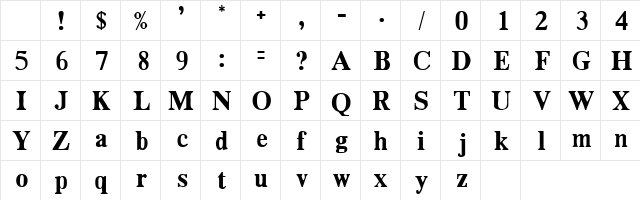
Complete DailyPlanet Black glyph index. Displaying only characters natively supported by DailyPlanet Black font.
DailyPlanet is a composed and adaptable typeface that performs quietly and consistently across a wide range of design contexts.